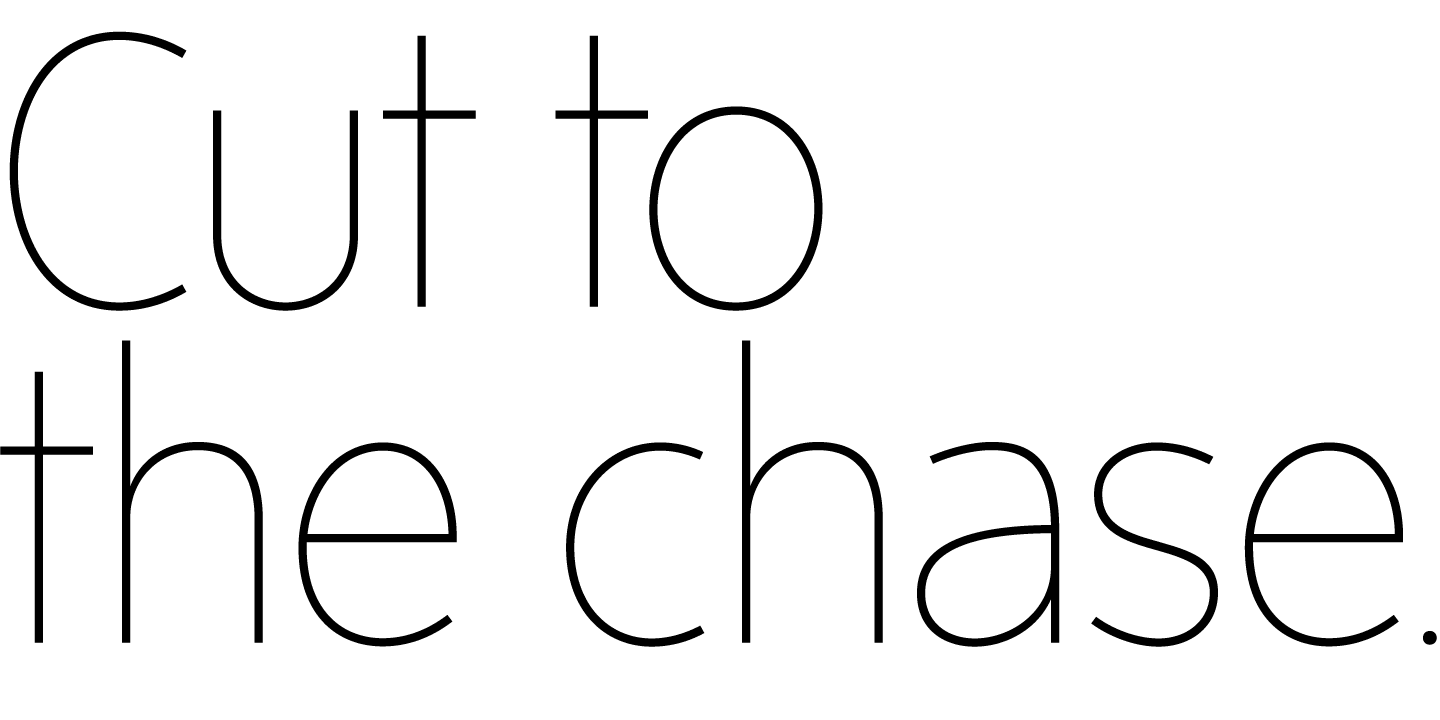
Sense is a sans serif font family. This typeface has sixteen styles and was published by Shinntype.
Modernist sans serif with a “big” look and lots of weights. Compact, elegant and strong, Sense commands any kind of page—from the largest headline to the smallest text.